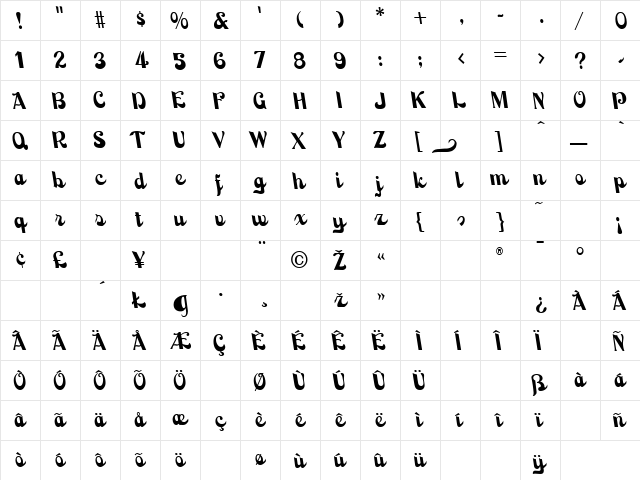
Backhand Script Regular Font Preview
Backhand Script Regular
Backhand Script Regular Font Details
Design Context for Backhand Script Typeface
Backhand Script brings a calligraphic fluidity to the page — its connecting strokes and expressive curves give it an unmistakably human quality.
Font Pairing: Combine Backhand Script with a simple geometric sans for maximum contrast — the tension between flowing curves and clean structure is a classic typographic pairing.
Pro Tip: Use Backhand Script for short runs of text — names, titles, or taglines. Extended body copy in script faces tires the eye quickly.